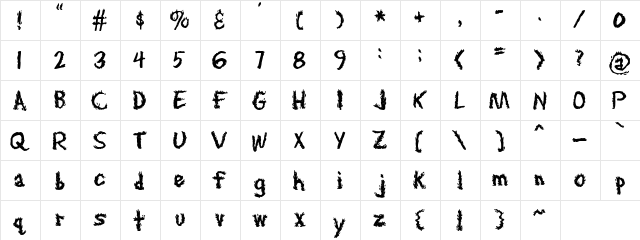
AnniesJagged Regular
Design Context for AnniesJagged Typeface
AnniesJagged is a composed and adaptable typeface that performs quietly and consistently across a wide range of design contexts.